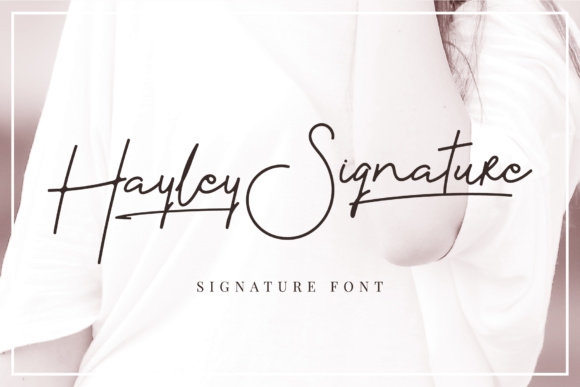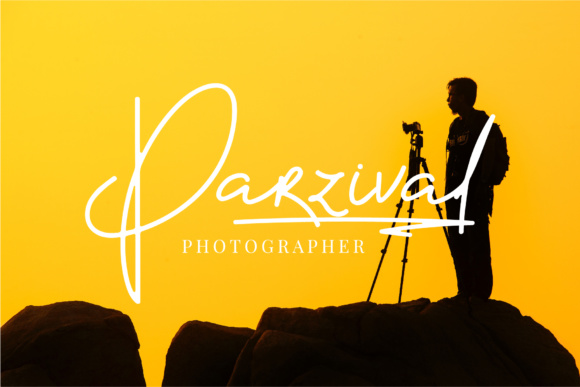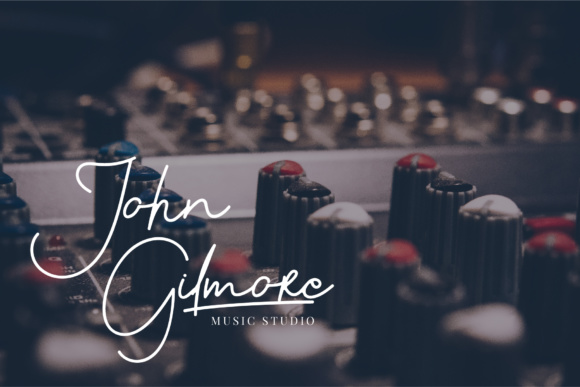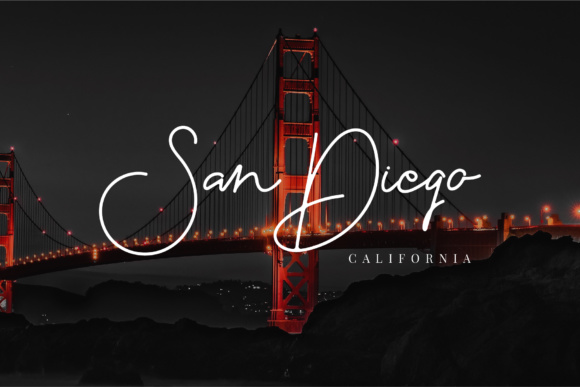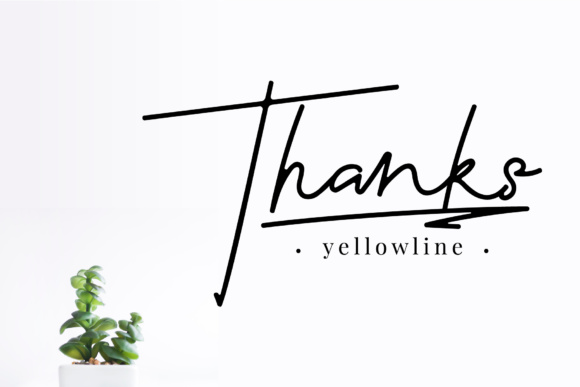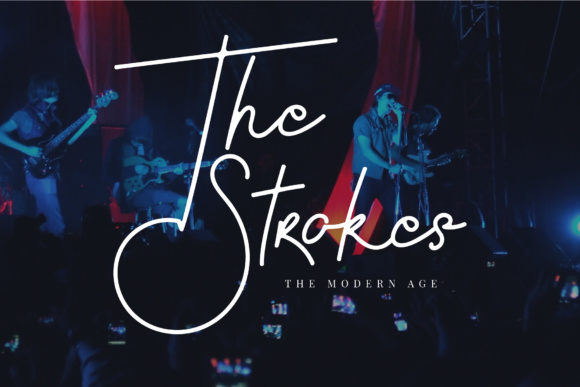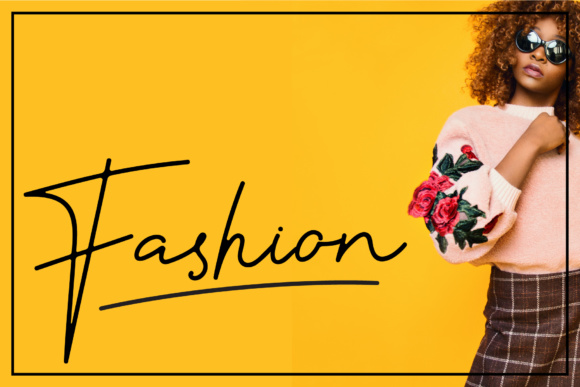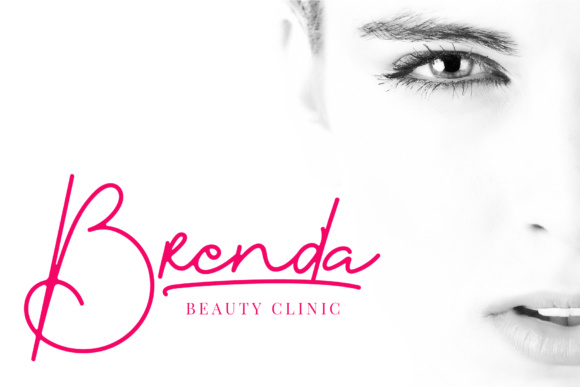
Hayley Font
About Hayley Font
Hayley is a refined and beautiful signature font, ideal for use in logotype and more! Hayley is a great type option when you need a classy, simple, and beautiful look in your projects.